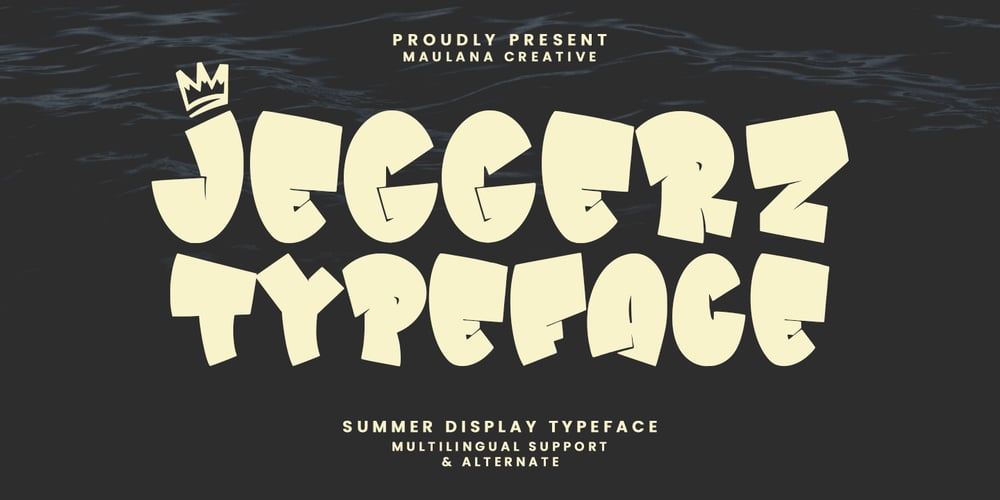
MC Jeggerz
MC Jeggerz font
MC Jeggerz Font Family was designed by Gilang Maulana and published by Maulana Creative. MC Jeggerz contains 1 styles and family package options. Jeggerz summer display typeface. Heavy stroke, fun character with a bit of ligatures. To give you an extra creative work. Jeggerz summer display typeface support multilingual more than 100+ language. This font is good for logo design, Social media, Movie Titles, Books Titles, a short text even a long text letter and good for your secondary text font with script or serif. Make a stunning work with Jeggerz summer display typeface. Cheers, Maulana Creative